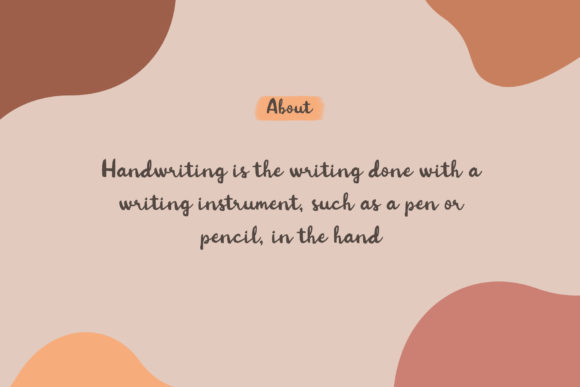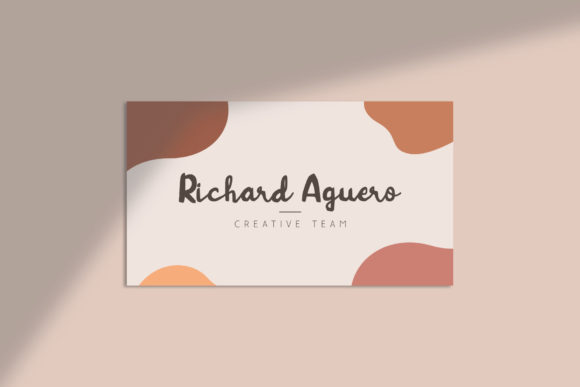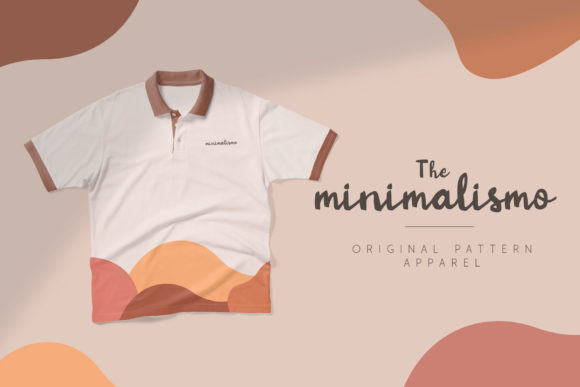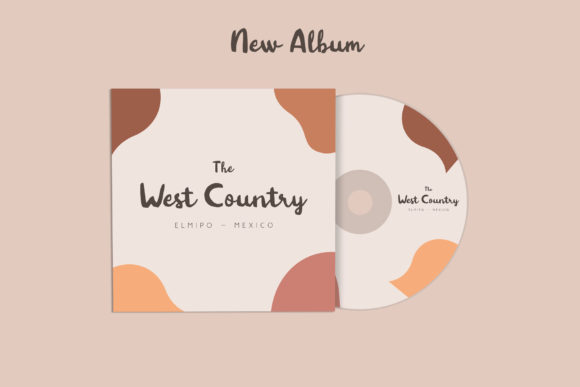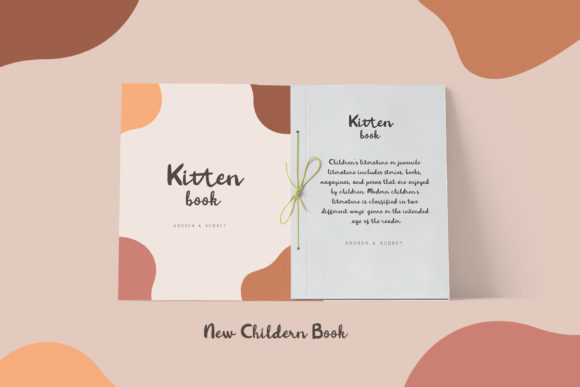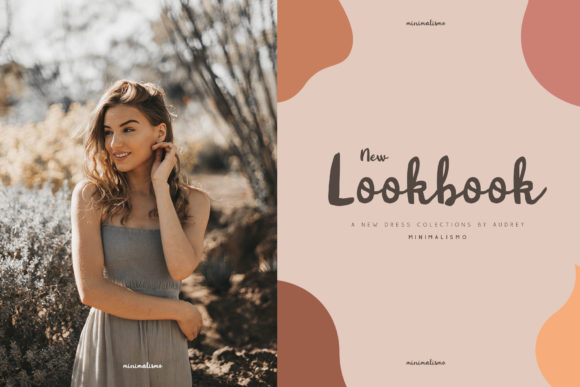
Unleash Your Creativity with Kitten Days Font
Have you ever sat at your desk, staring blankly at a blank page, trying to come up with the perfect idea for a new project? It’s a feeling we’ve all been there, and it’s the moment when creativity strikes and all of a sudden, your imagination runs wild. For designers, it’s this spark of inspiration that sets their projects apart and makes them truly special.
One tool that can help ignite that spark is the Kitten Days Font, a charming and playful handwritten font that adds a touch of whimsy to any design. This font is perfect for those looking to add a personal touch to their work, whether it’s a logo, a social media post, or a website header. With its unique style, Kitten Days Font is a valuable addition to any designer’s toolkit.
Kitten Days Font Key Features
- Font Family: Kitten Days Font is a unique, hand-drawn font designed to evoke a sense of playfulness and whimsy. It features a mix of uppercase and lowercase letters, as well as punctuation and numbers.
- Size: The font is available in a single weight, making it ideal for use in a variety of contexts, from headings and titles to body text and captions.
- Resolution: Designed to be scalable, the Kitten Days Font can be used at various resolutions, from small text to large display headings.
- Unique Characteristics: The font’s hand-drawn design features a mix of bold and delicate lines, creating a sense of movement and energy. The letterforms are irregular and playful, adding to the font’s whimsical feel.
- Character Count: The font contains over 200 characters, including a range of punctuation marks and numbers, making it a versatile choice for designers and typographers.
Kitten Days Font Review
Overall, I think the Kitten Days Font is a delightful and whimsical addition to any design project. ✨ The font’s playful nature and cutesy feel are perfect for projects that require a lighthearted touch, such as children’s book covers, pet-themed designs, or even social media graphics. ✨ The font’s consistency and coherence make it easy to use, even for designers who are new to working with unique or decorative fonts.
However, there are a few limitations to consider. ⚠️ The font’s small character set may limit its usability for longer blocks of text, as it can be challenging to maintain readability. Additionally, the font’s design may not be suitable for professional or formal projects, as it may come across as too childish or immature. ⚠️ Finally, some users may find the font’s cutesy feel to be overused or clichéd, which could impact its overall effectiveness.
- Perfect for projects that require a lighthearted touch
- Easy to use, even for designers new to decorative fonts
- Delightful and whimsical feel
Overall, I would recommend the Kitten Days Font for designers who are looking for a fun and playful addition to their projects. While it may not be suitable for all types of projects, its unique feel and charm make it a great choice for the right applications.
The Kitten Days Font is ideal for:
- Designing children’s products and packaging.
- Creating whimsical and playful graphics.
- Adding a touch of nostalgia to your designs.
Tips for Getting the Most Out of the Kitten Days Font
To get the most out of the Kitten Days Font, try:
- Mixing and matching it with other playful fonts.
- Using it in bold or italic styles to add emphasis.
- Pairing it with bright and bold colors.
Alternatives to “Kitten Days Font” for Designers
Great Vibes Font is a modern script font that conveys a sense of fun and playfulness. It’s perfect for designs that require a carefree and youthful feel. Great Vibes Font is more versatile than Kitten Days Font, with a wider range of styles and variations available.
Comparison to Kitten Days Font: While both fonts have a playful feel, Great Vibes Font is more modern and sophisticated. It’s a great choice for designs that require a bit more elegance and refinement.
Alex Brush Font is a elegant script font that’s perfect for designs that require a touch of sophistication and refinement. It’s ideal for wedding invitations, luxury branding, and other high-end designs. Alex Brush Font is more refined and polished than Kitten Days Font, making it a great choice for designs that require a bit more glamour.